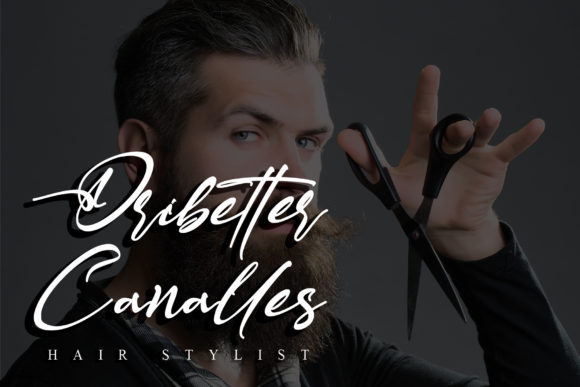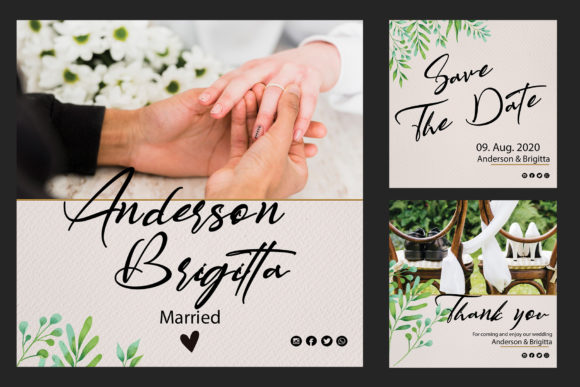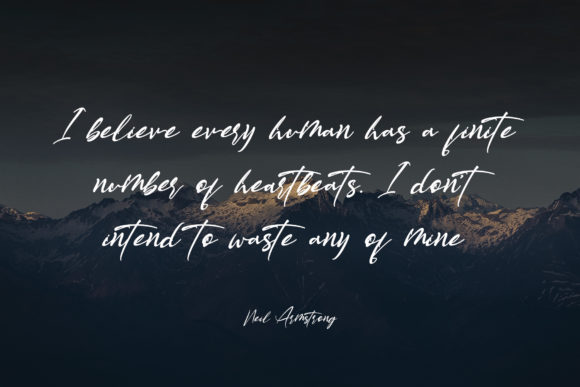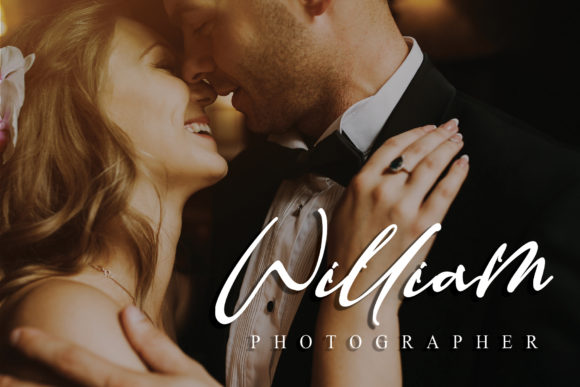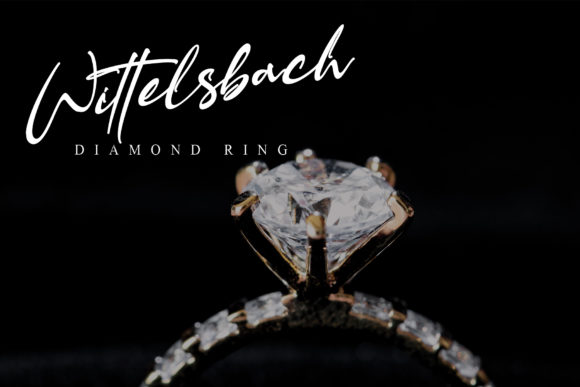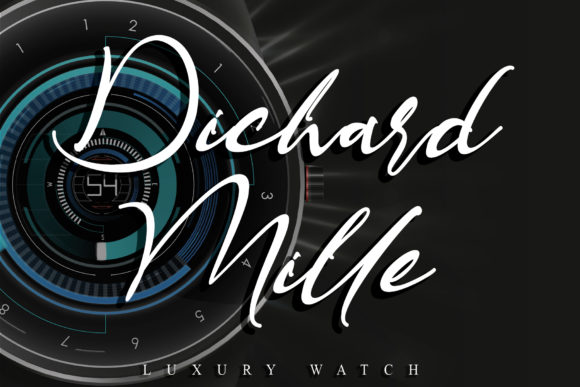
Introducing American Bully Font: The Magical Handwritten Font for Creative Projects
Are you a designer or crafter looking for a unique and elegant font to elevate your creative projects? Look no further than the American Bully Font, a beautifully crafted handwritten font that is sure to turn your ideas into standouts. With its enchanting and sophisticated look, this font is perfect for anyone who wants to add a touch of magic to their designs.
What is American Bully Font?
American Bully is a carefully crafted handwritten font that boasts a unique and elegant look. Created with a touch of sophistication, this font is designed to make your creative projects shine. Whether you’re working on a crafting project, designing a logo, or creating a social media post, American Bully Font is the perfect choice.
Key Features of American Bully Font
- Handwritten look: American Bully Font has a beautiful, handwritten look that adds a personal touch to any project.
- Elegant and sophisticated: With its elegant and sophisticated design, this font is perfect for projects that require a touch of class.
- Unique and creative: American Bully Font has a unique look that will set your projects apart from the rest.
- Versatile: This font can be used on a wide range of projects, from crafting and DIY to graphic design and digital marketing.
Benefits of Using American Bully Font
So why choose American Bully Font for your creative projects? Here are just a few benefits of using this amazing font:
- Adds a personal touch: With its handwritten look, American Bully Font adds a personal touch to any project.
- Increases creativity: The unique and creative design of this font will inspire you to think outside the box and come up with innovative ideas.
- Perfect for branding: American Bully Font is elegant and sophisticated, making it perfect for branding and logo design.
- Experiment with different sizes: American Bully Font looks great in a variety of sizes, so don’t be afraid to experiment and find the perfect size for your project.
American Bully Font is a magical handwritten font that is sure to elevate your creative projects. With its elegant and sophisticated design, this font is perfect for designers and crafters who want to add a touch of class to their work. Whether you’re working on a crafting project, designing a logo, or creating a social media post, American Bully Font is the perfect choice. So why wait? Download American Bully Font today and start creating your own magical projects!